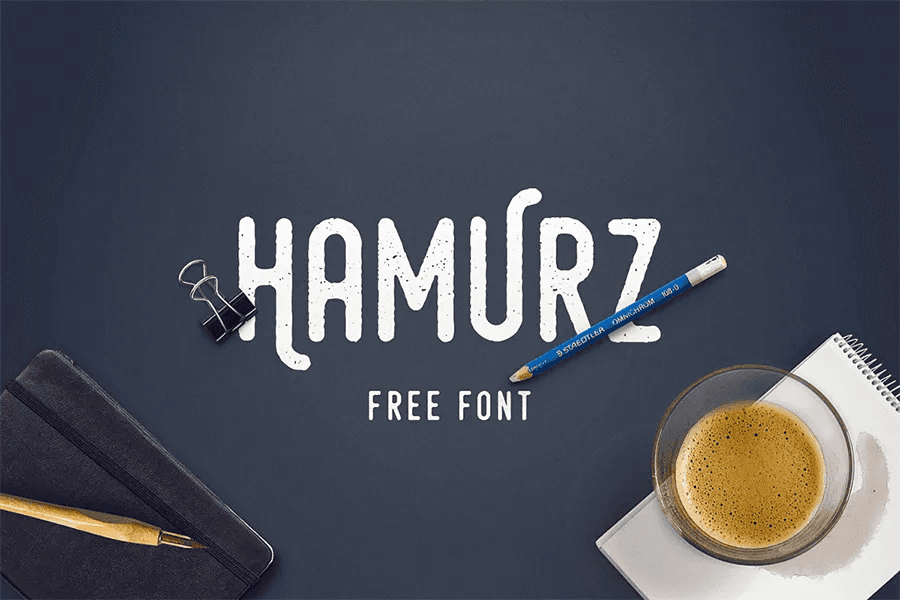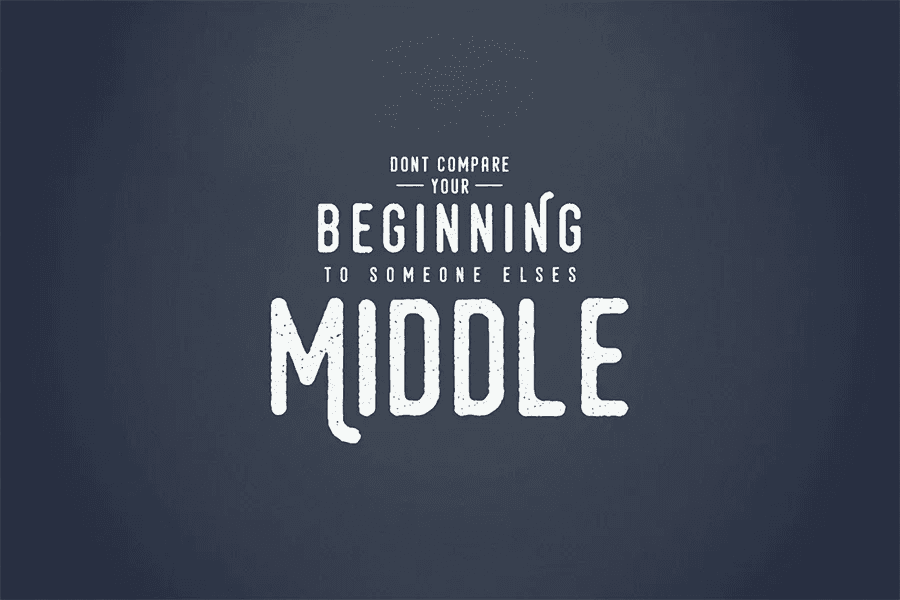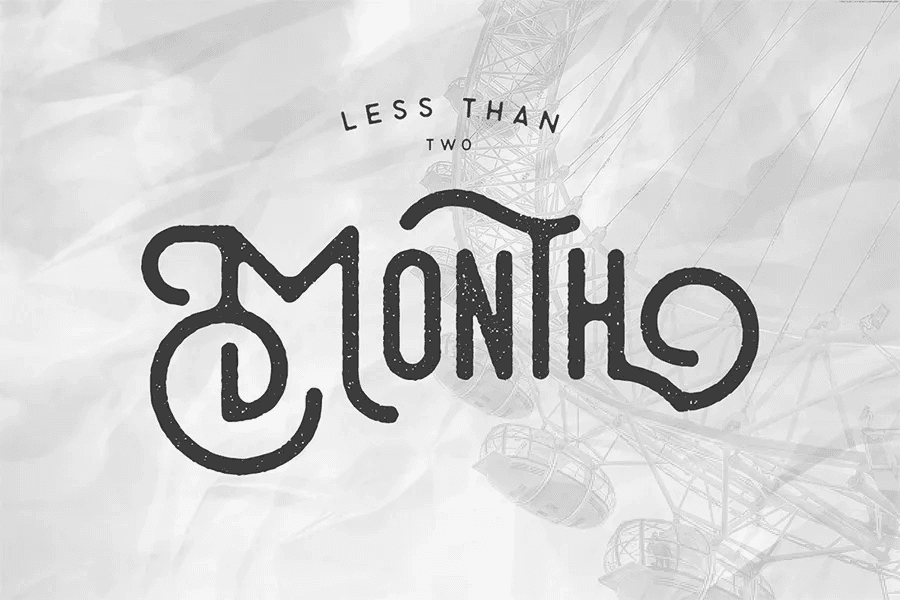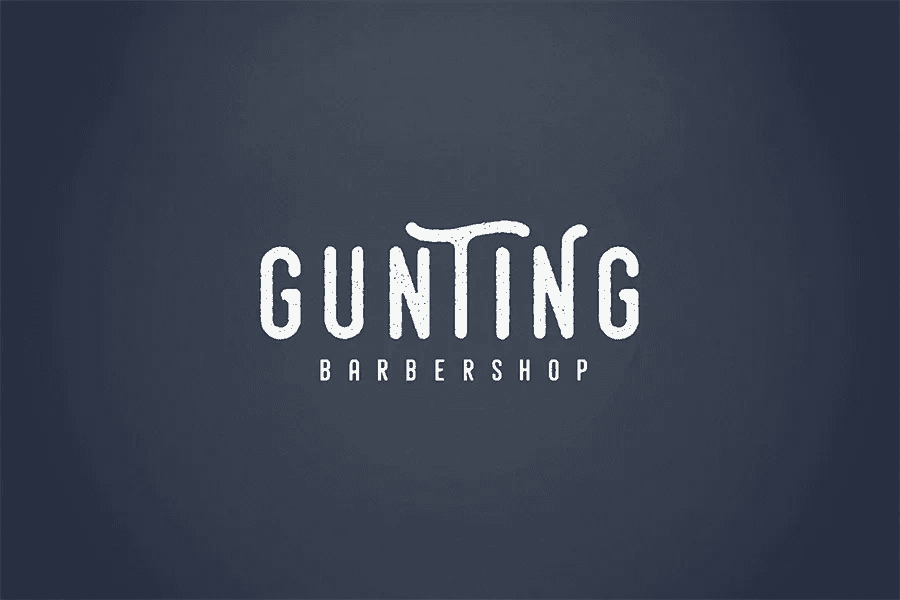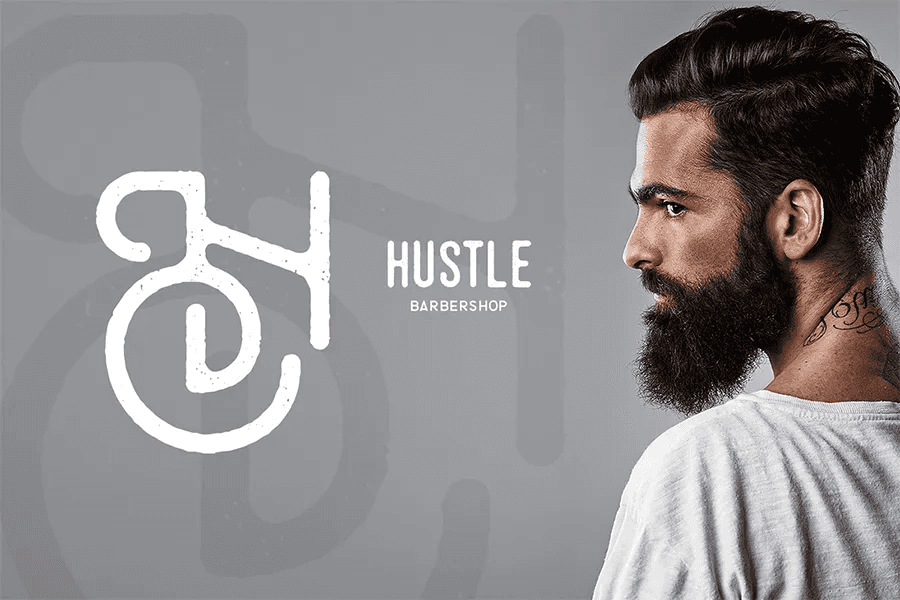
Hamurz Free Font
Hamurz Free font is a hipster-style vintage typeface with rough edges and rounded shapes. Great for any kind of designs such us t-shirt designs, badges/insignias, headings, logotype, letterpress, vintage, or any designs you may think it suits.